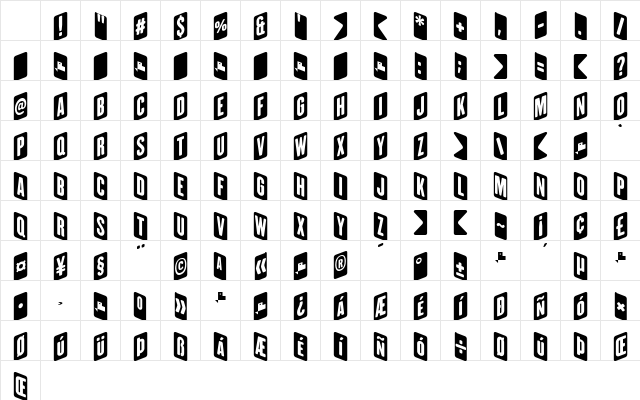
Complete ZiGzAgEo Regular glyph index. Displaying only characters natively supported by ZiGzAgEo Regular font.
ZiGzAgEo is a composed and adaptable typeface that performs quietly and consistently across a wide range of design contexts.
Who designed the ZiGzAgEo Regular font?